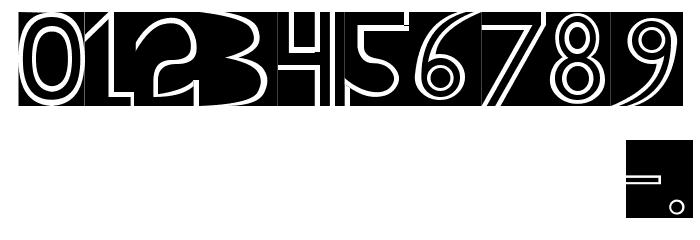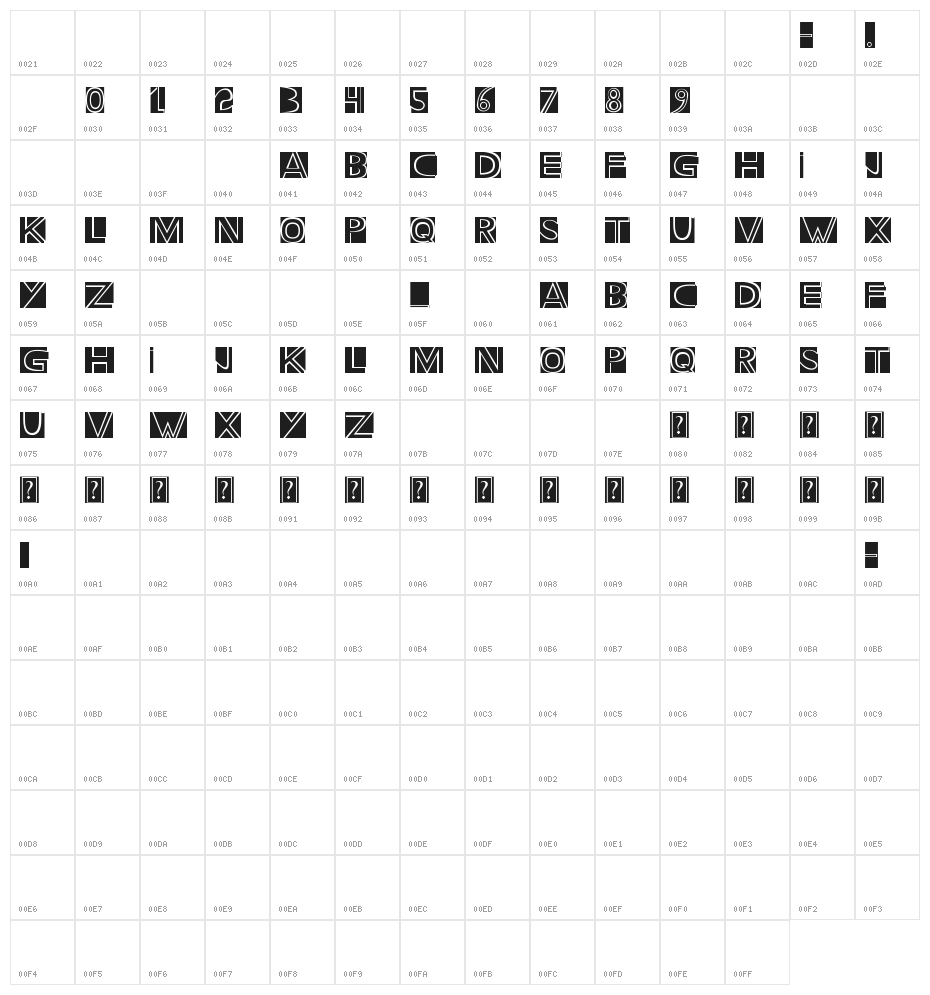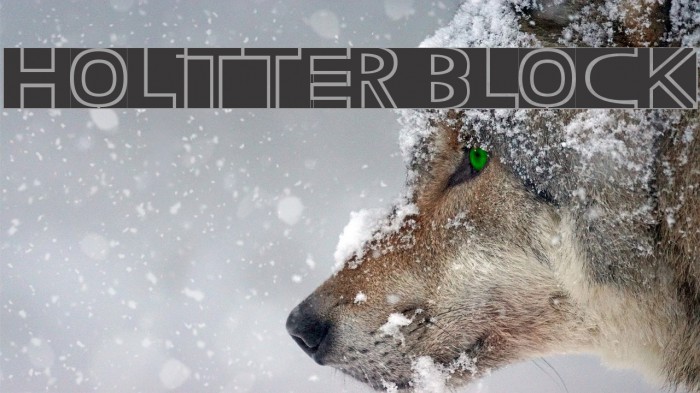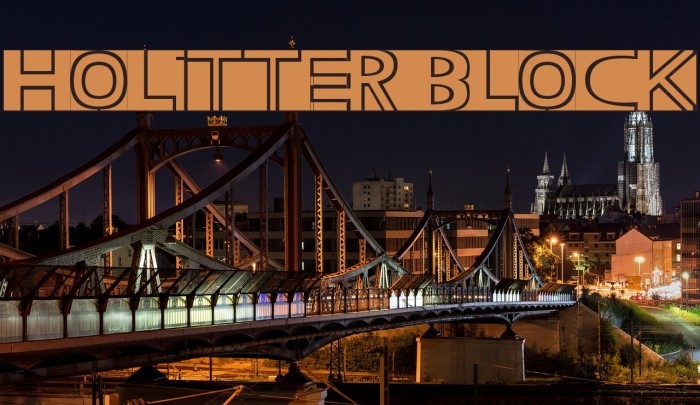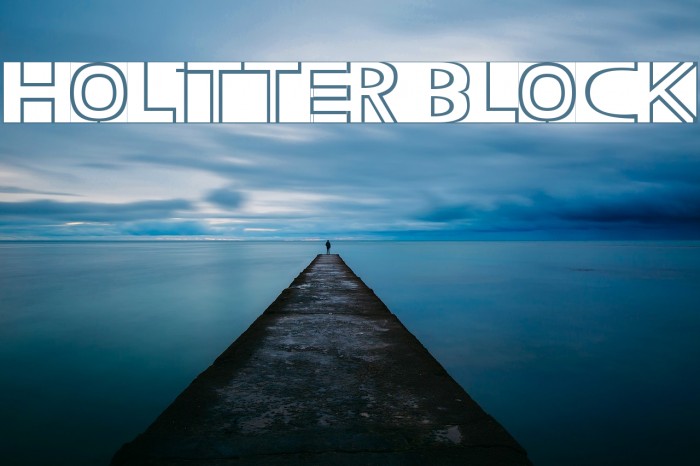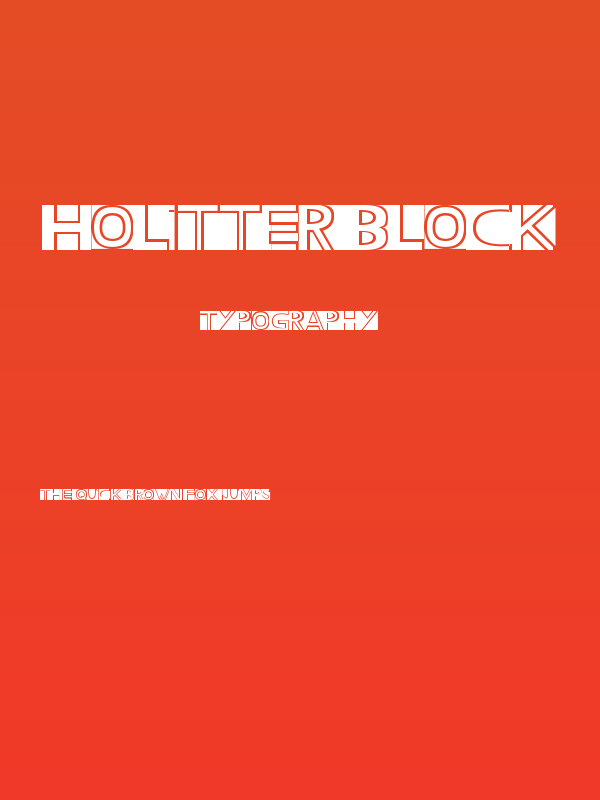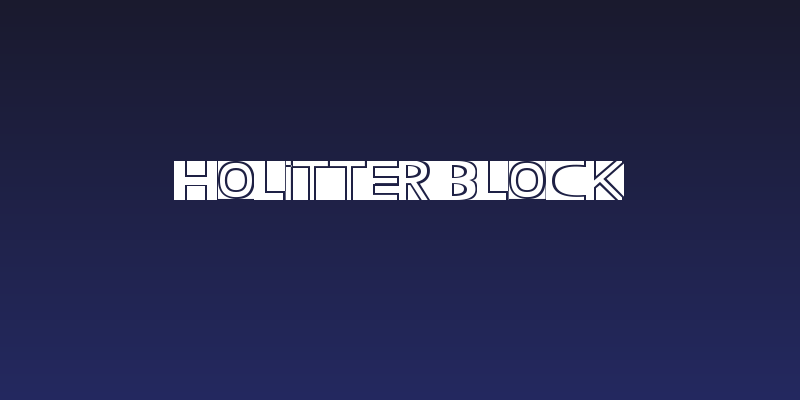
Holitter Block Font
Holitter Block Description
This font features a bold, geometric design with a strong emphasis on angular shapes and sharp edges. The characters are constructed with a combination of thick and thin lines, creating a high contrast that enhances readability while maintaining a striking visual impact. The style is reminiscent of Art Deco influences, with a modern twist that makes it suitable for contemporary design projects. The uppercase letters are particularly dominant, with a block-like appearance that commands attention. The numerals and special characters maintain the same bold aesthetic, ensuring consistency across all text elements.
| Proposed Projects | Ideal for branding, posters, headlines, and any project requiring a strong, modern typeface. |